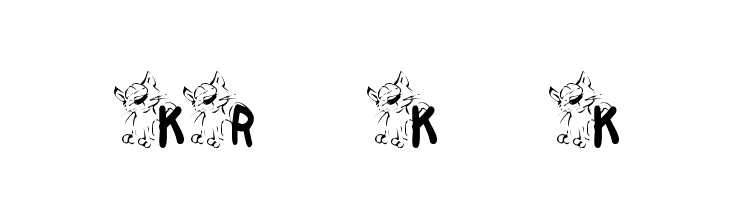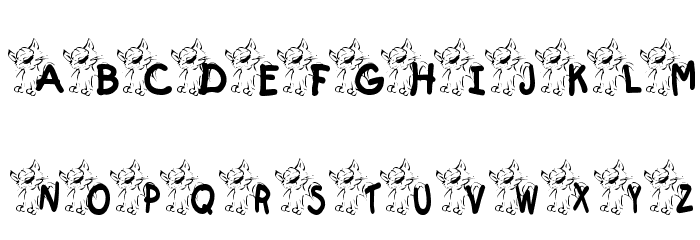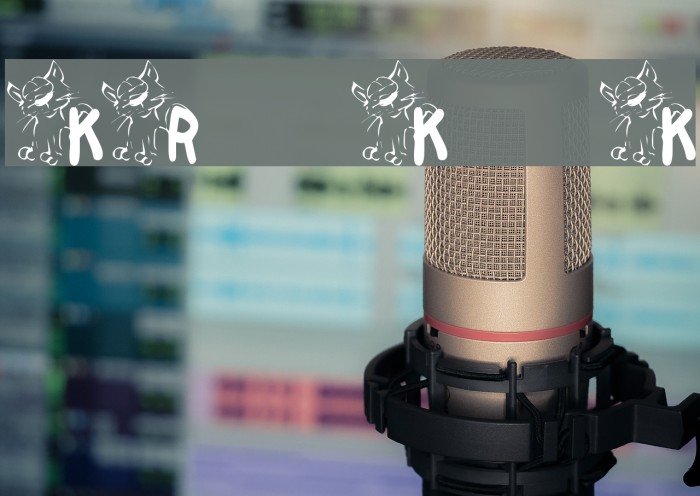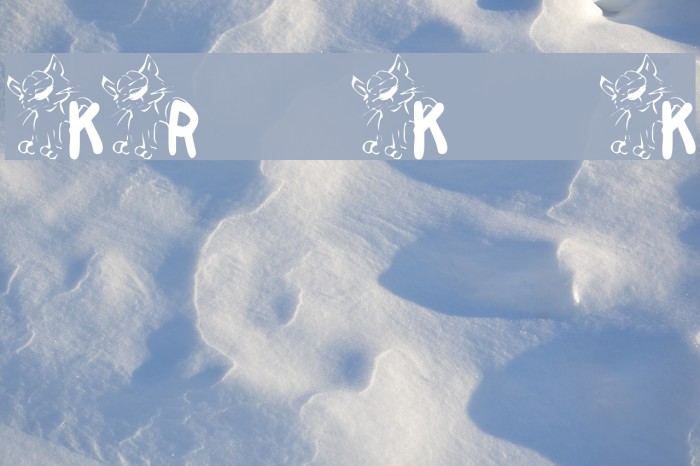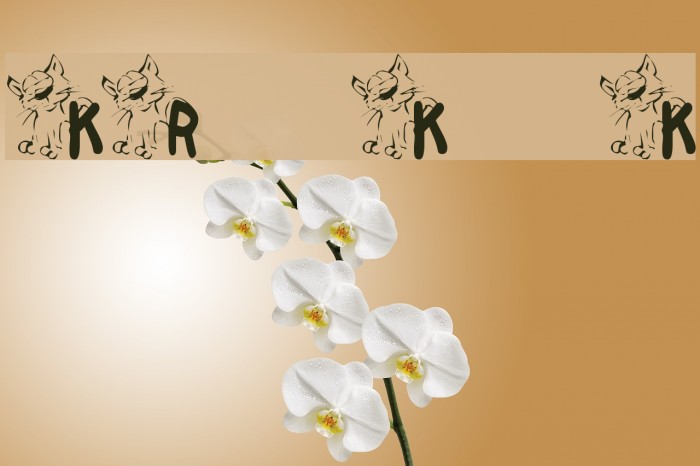
KR Krazy Kat Font
This playful and whimsical font features bold, rounded characters that are accompanied by a charming cat illustration. Each letter is distinct, with a slightly irregular shape that adds to its quirky appeal. The font is designed to capture attention with its unique combination of text and imagery, making it ideal for projects that require a fun and engaging visual element. The cat illustrations are consistent across all characters, providing a cohesive and thematic look. This font is perfect for children's books, playful branding, or any creative project that benefits from a touch of humor and personality.
A playful font with bold letters and cat illustrations, perfect for whimsical projects.
• Proposed Projects: Children's books, playful branding, creative invitations, and whimsical posters.
• Category: Decorative/Display
• Bold: Yes
• Italic: No
• Weight: Bold
• Width: Normal
• Character Spacing: Normal
• Contrast: Low
• Overall Style: Whimsical
• Use Case: Headlines, Logos